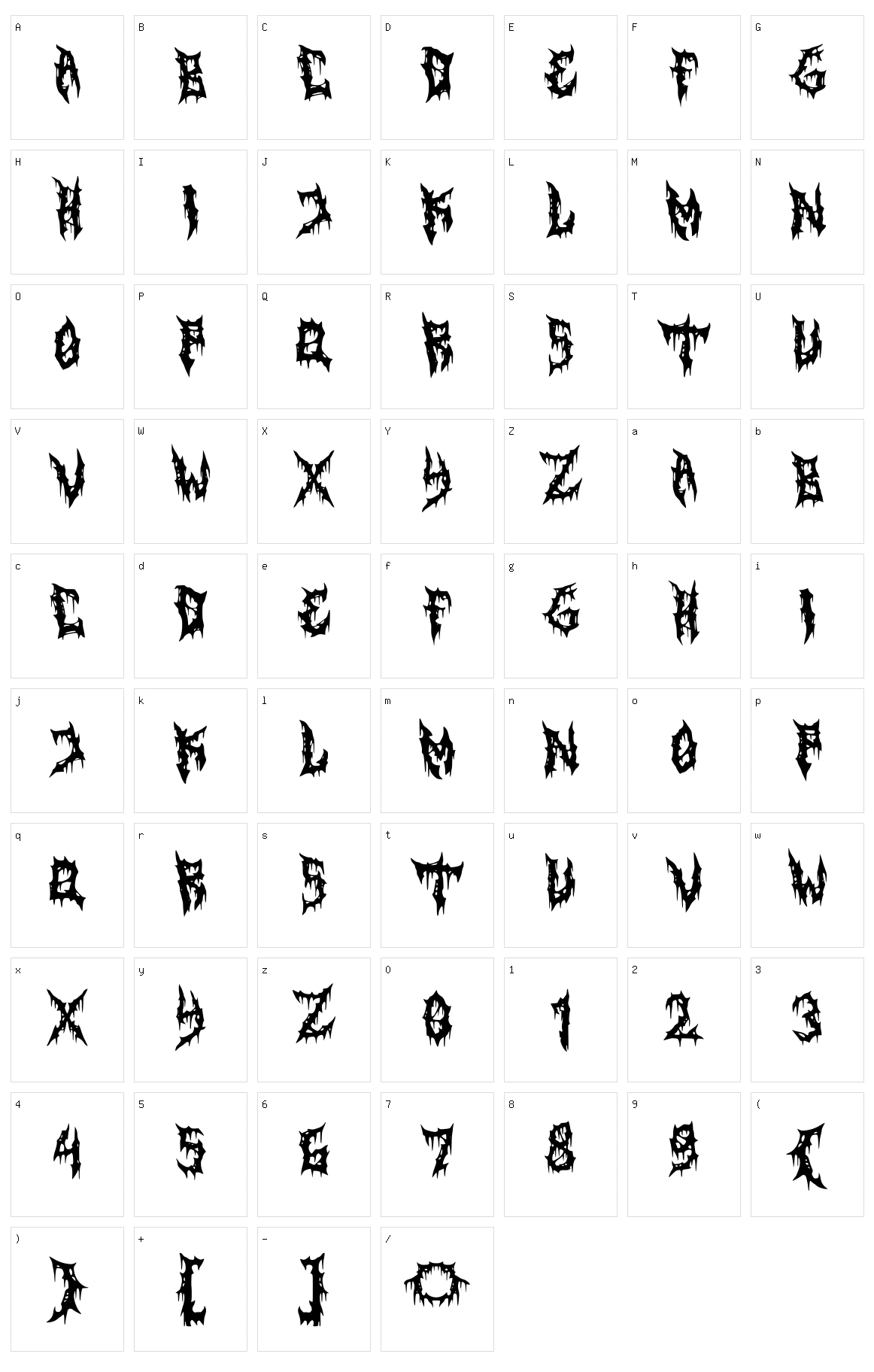
The free font Horrorizer is carefully designed by 47, showcasing a thoughtful balance of creativity and usability and falls under the Horror font style. When you download the ZIP file, it contains only 41.86 KB of font files, making it lightweight and quick to download. Please review the license details below to understand permitted usage and distribution rights. If license information is not available, we recommend using this font for personal projects only or contacting the author directly for commercial usage permissions.